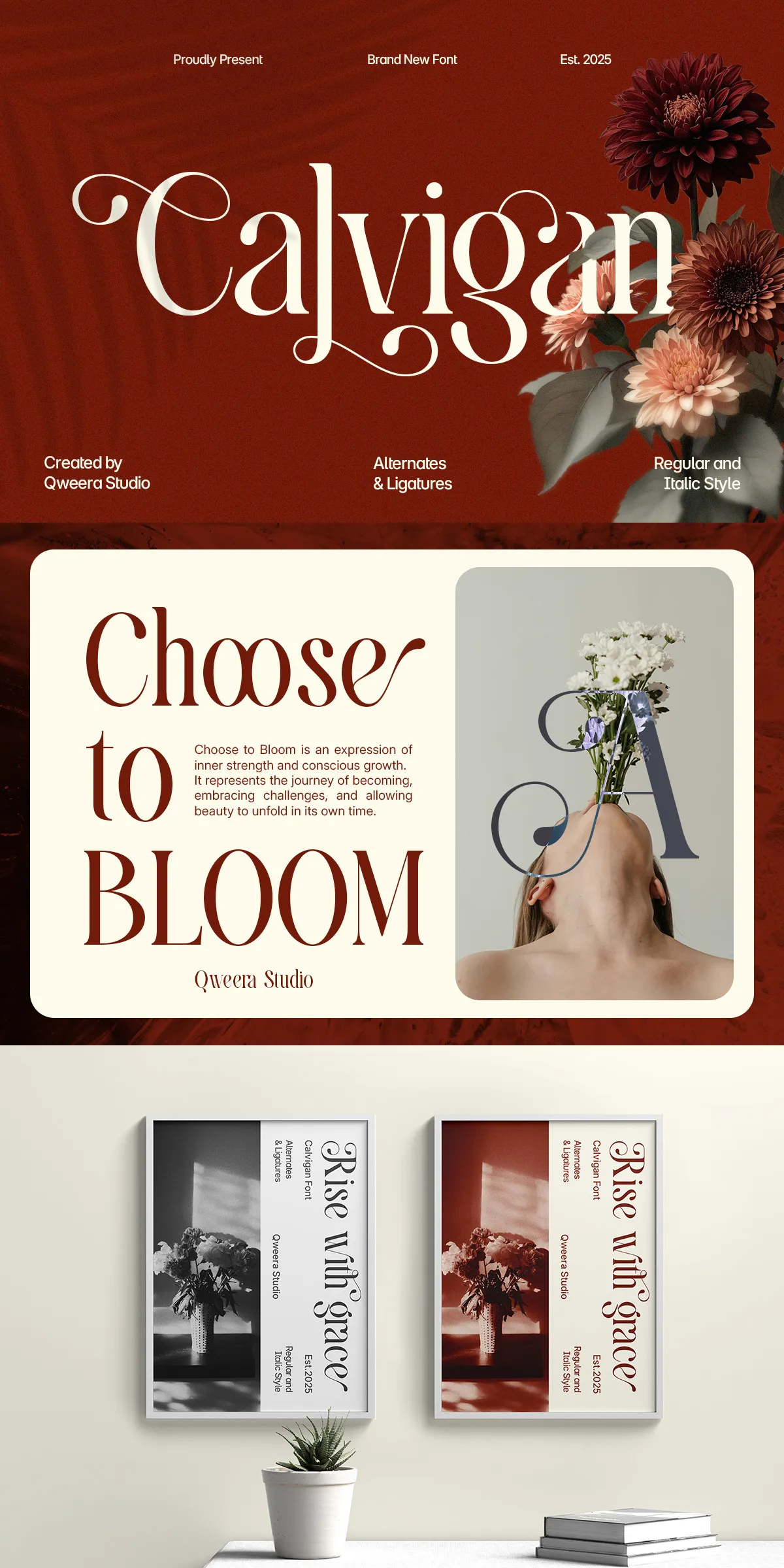
Calvigan projects immediate refinement and romantic charm. Engineered for designers who demand a graceful, upscale voice, this modern serif combines smooth contrast and refined curves to deliver a confident typographic presence across print and digital touchpoints. Calvigan reads clearly at display sizes and performs beautifully in crafted wordmarks, packaging, and editorial headlines. The typeface emphasizes legibility while introducing expressive ligatures and alternates that add bespoke character to every composition. Use Calvigan when you want visuals to feel luxurious, intentional, and unmistakably premium.
Why Calvigan Enhances Boutique Logos And Sophisticated Visual Systems
Calvigan balances classical serif proportions with contemporary refinement to create letterforms that feel both timeless and modern. The carefully measured stroke contrast and open counters ensure clarity, while the soft terminals and refined ligatures contribute a romantic voice that complements high-end aesthetics. Calvigan asserts brand authority without overpowering imagery, making it ideal for identity systems that require both personality and restraint. Apply it to logos, monograms, and brand headlines to instantly elevate perceived value and craft a cohesive premium identity.
Technical Features And Included Font Options For Designers
- Complete uppercase and lowercase character sets for comprehensive typography control
- Alternates and ligatures to create distinctive logotypes and elegant headline treatments
- Multilingual support with extended diacritics for international branding projects
- PUA encoded glyphs for easy access to stylistic alternates and decorative swashes
- Regular and Italic styles provide consistent voice and flexible typographic hierarchy
Practical Applications And Immediate Design Use Cases For Calvigan
Calvigan excels wherever a refined, romantic tone matters. Use it for wedding stationery and invitations to convey warmth and elegance. Deploy it in boutique branding and luxury packaging to reinforce craftsmanship and premium positioning. In editorial design, Calvigan creates commanding magazine titles and feature headlines that read with poise. Beauty brands, fashion campaigns, and lifestyle products benefit from the typeface’s understated glamour — it anchors visual systems and enhances product storytelling. Designers can apply Calvigan across identity, print collateral, ecommerce hero banners, and environmental graphics with consistent impact.
Implementation Tips To Maximize Elegance And Readability
- Pair Calvigan with a neutral sans-serif for body copy to maintain readability while allowing the serif to function as a strong display element.
- Increase letterspacing and scale for large headlines to reveal the typeface’s elegant proportions and create refined negative space.
- Use alternates and ligatures selectively to personalize logotypes without sacrificing legibility in longer headlines.
- In print, choose high-quality paper and consider embossing or foiling to amplify the typeface’s luxury cues.
Styling Strategies And Pairing Recommendations For Cohesive Systems
Create balanced visual systems by pairing Calvigan with clean geometric or humanist sans-serifs. Favor a restrained color palette—muted neutrals, soft pastels, or a single accent hue—so typography drives the tone. Use minimal iconography and subtle dividers that echo the serif’s terminal profiles. For logotypes, experiment with mixed-case compositions, small caps, and stylistic alternates to craft marks that scale across digital and physical platforms. Keep supporting elements minimal to let Calvigan’s refined features convey sophistication.